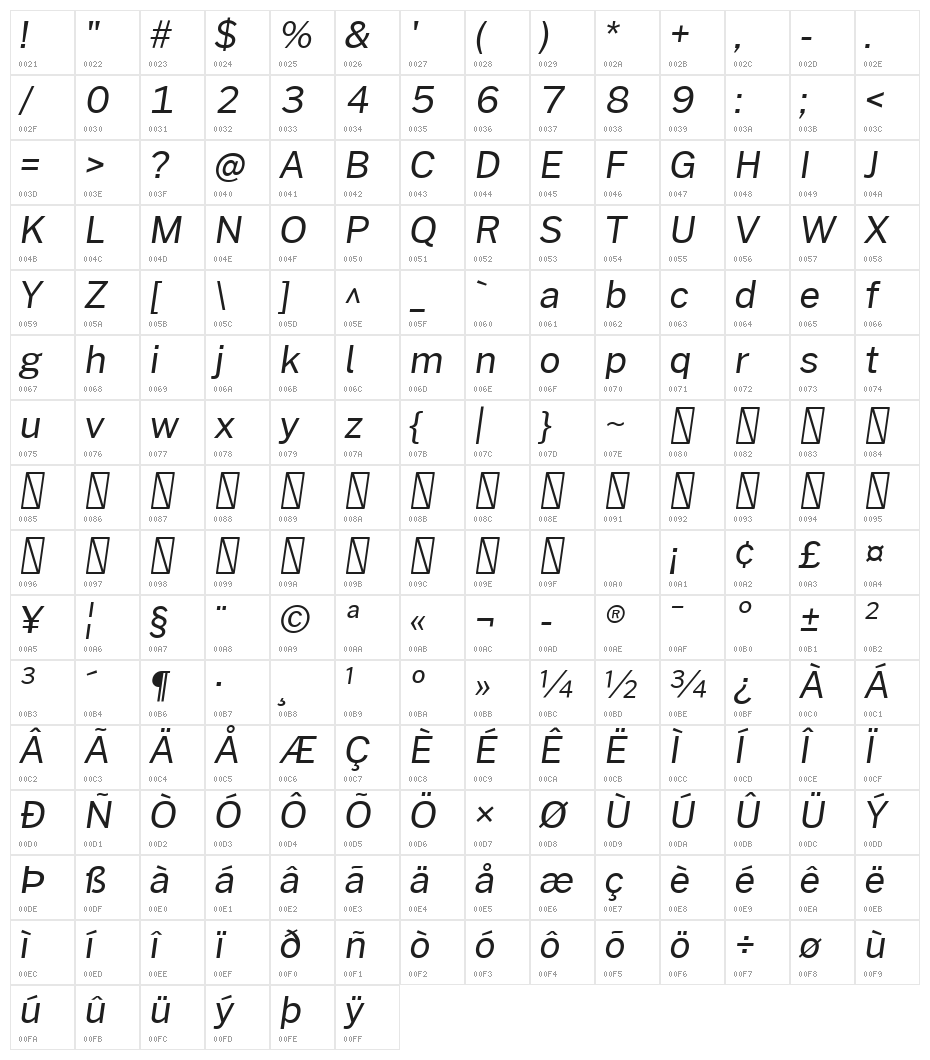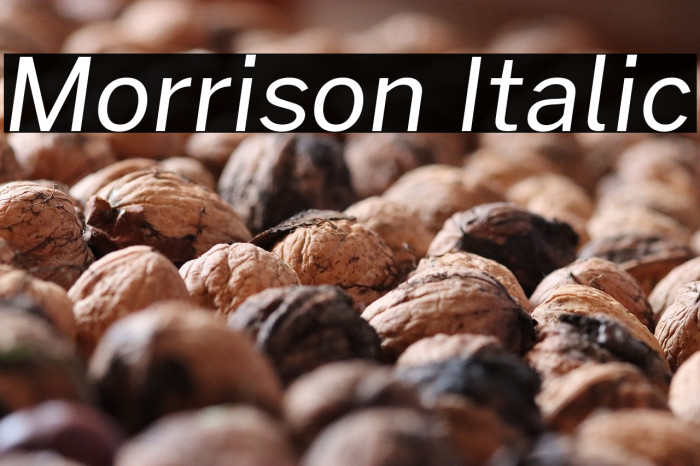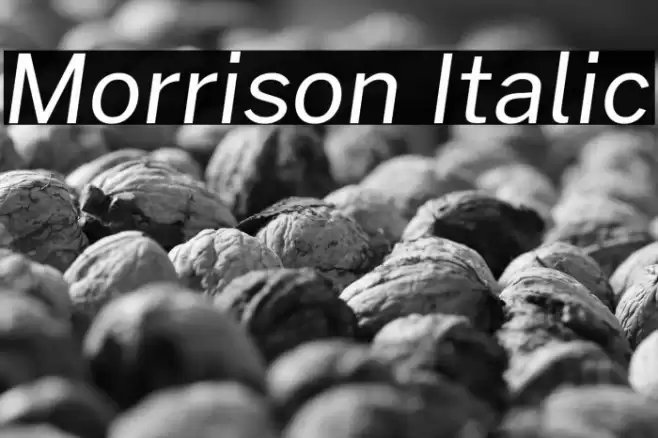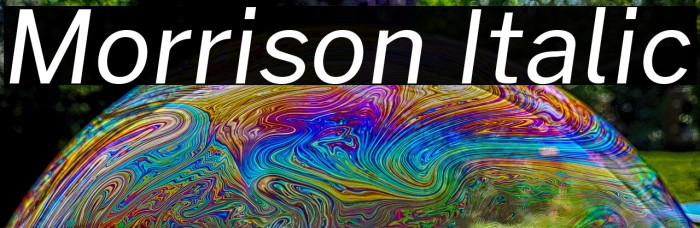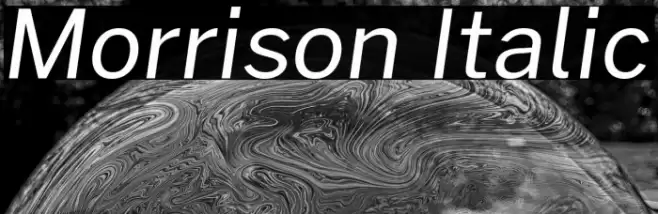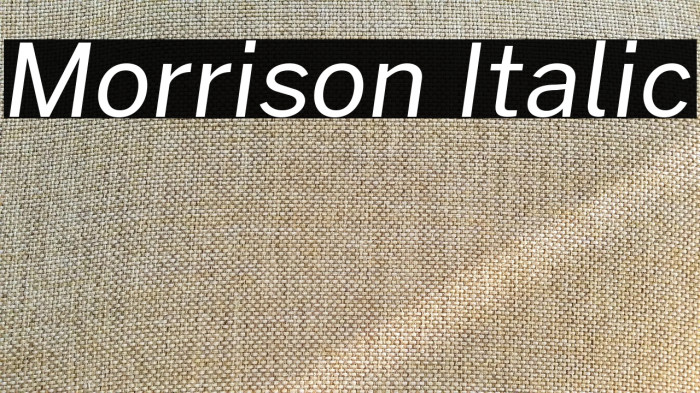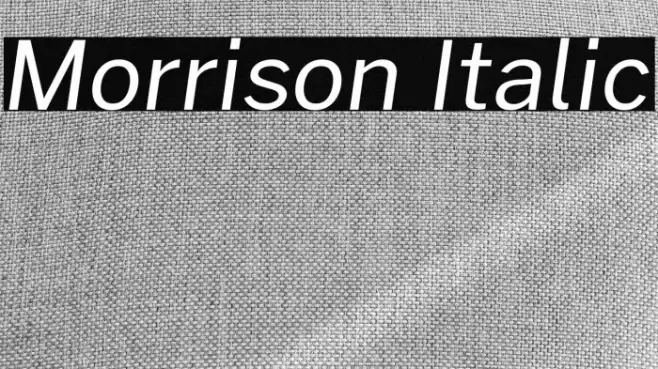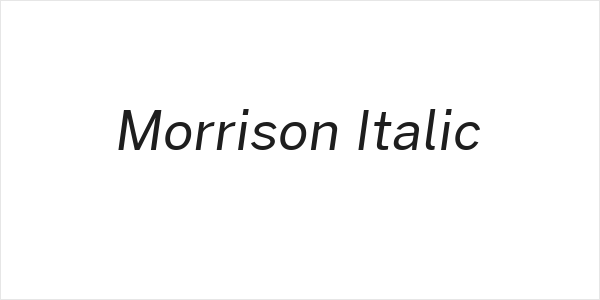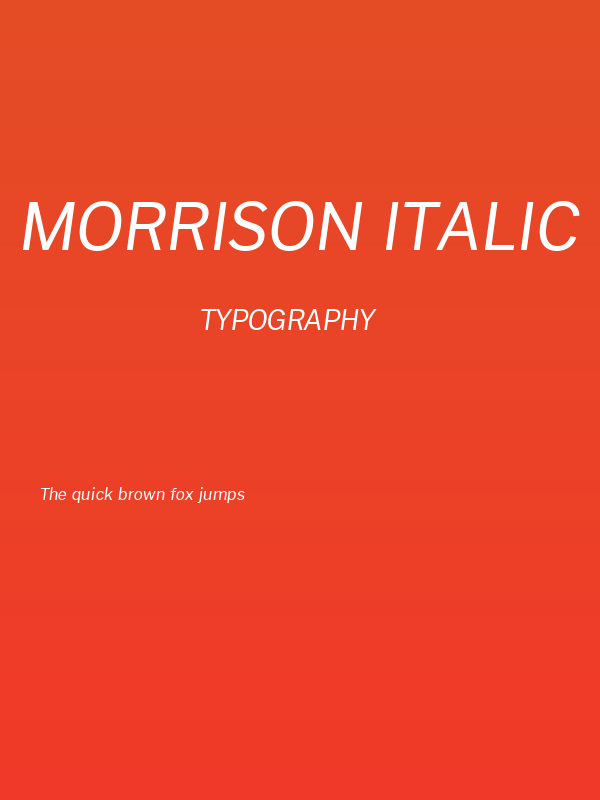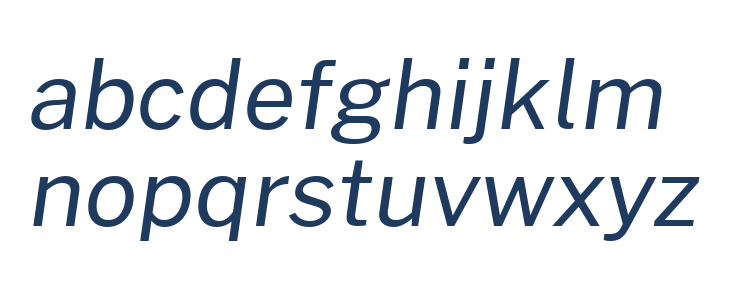
Morrison Italic Font
Morrison Italic Description
This font features a sleek and modern italic style, characterized by its smooth curves and clean lines. The letters are slightly slanted, giving a sense of motion and elegance. The uppercase and lowercase letters maintain a consistent style, with a moderate contrast between thick and thin strokes. The numerals are clear and legible, matching the overall aesthetic of the alphabet. Special characters are well-integrated, ensuring versatility in various design contexts. The font's design is both functional and stylish, making it suitable for a wide range of applications.
| Proposed Projects | Ideal for branding, editorial design, and digital interfaces where a modern and elegant touch is desired. |